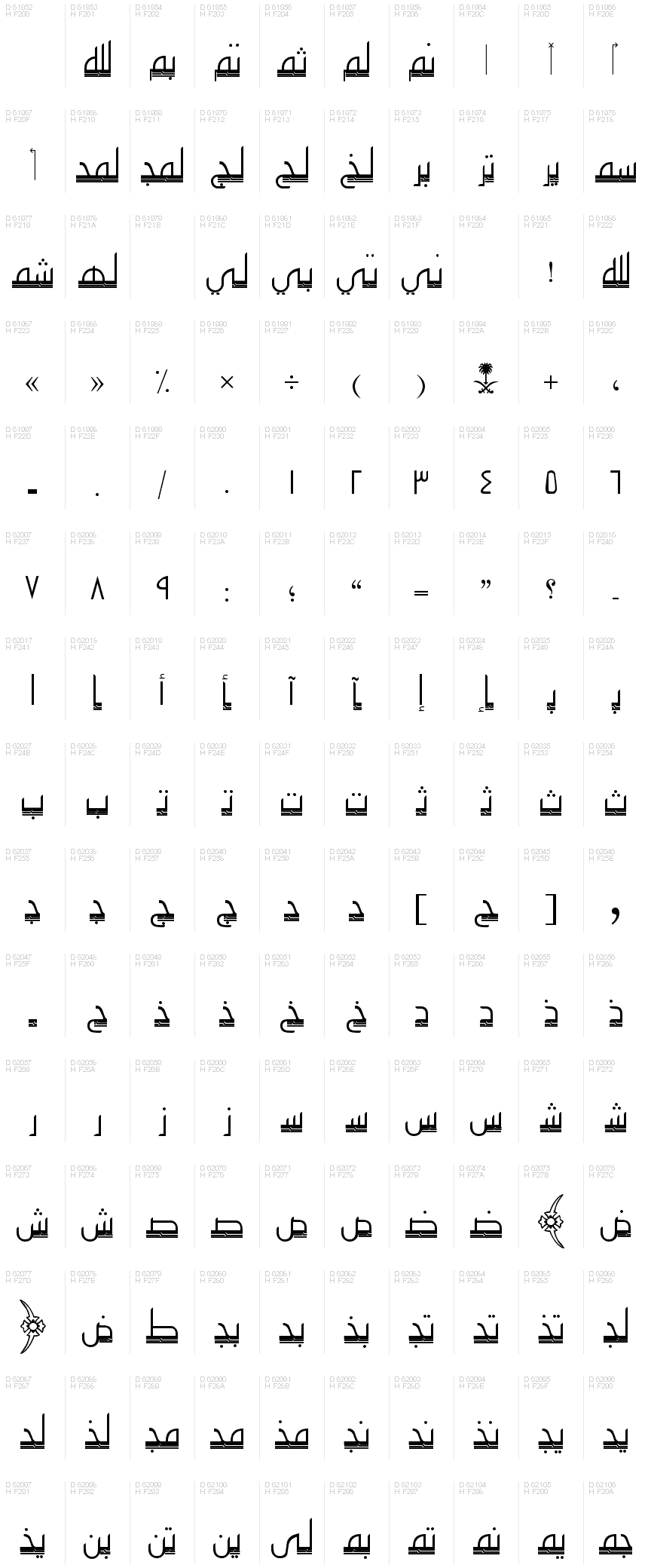
MCS Alhada Deco is a free geometric Arabic display font with a stark, architectural rhythm. The letters read like a row of tall rectangular frames, with squared turns and even spacing that give the font a deco mood while keeping the overall look close to modern Kufic lettering.
It fits branding for cafes, fashion labels, cultural posters, packaging, and title cards where that block-built cadence can carry the whole line. As a free font, it also makes sense for short headlines, monograms, and cover lines, especially when you want Arabic lettering that feels structural, pared back, and unmistakably graphic.